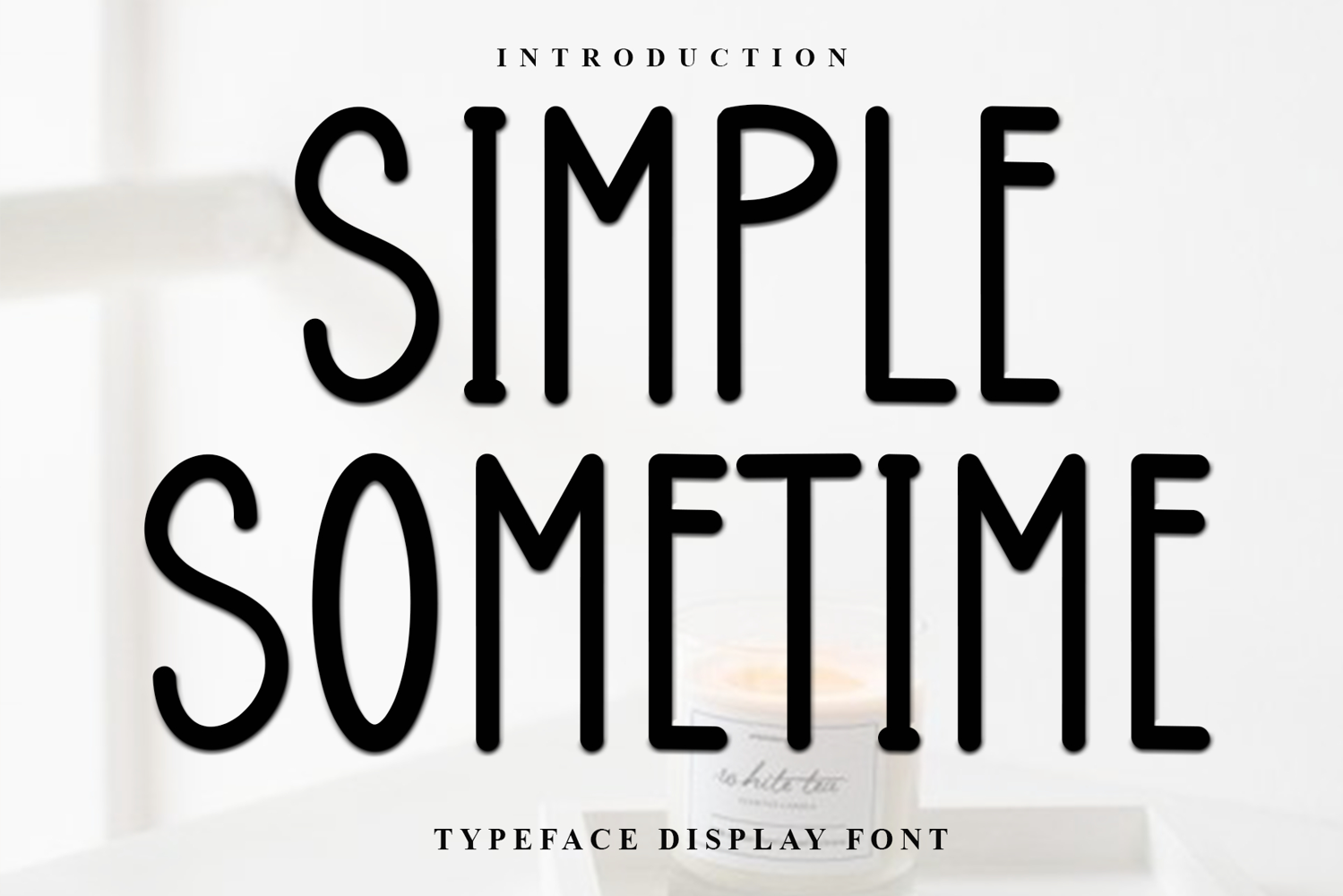
Simple Sometime
Simple Sometime is a beautiful and eye-catching font designed with a soft, unique touch. Its distinctive strokes give it a special character, making it meaningful and versatile for future use. With various characters, it’s perfect for design projects, crafts, and other creative works.